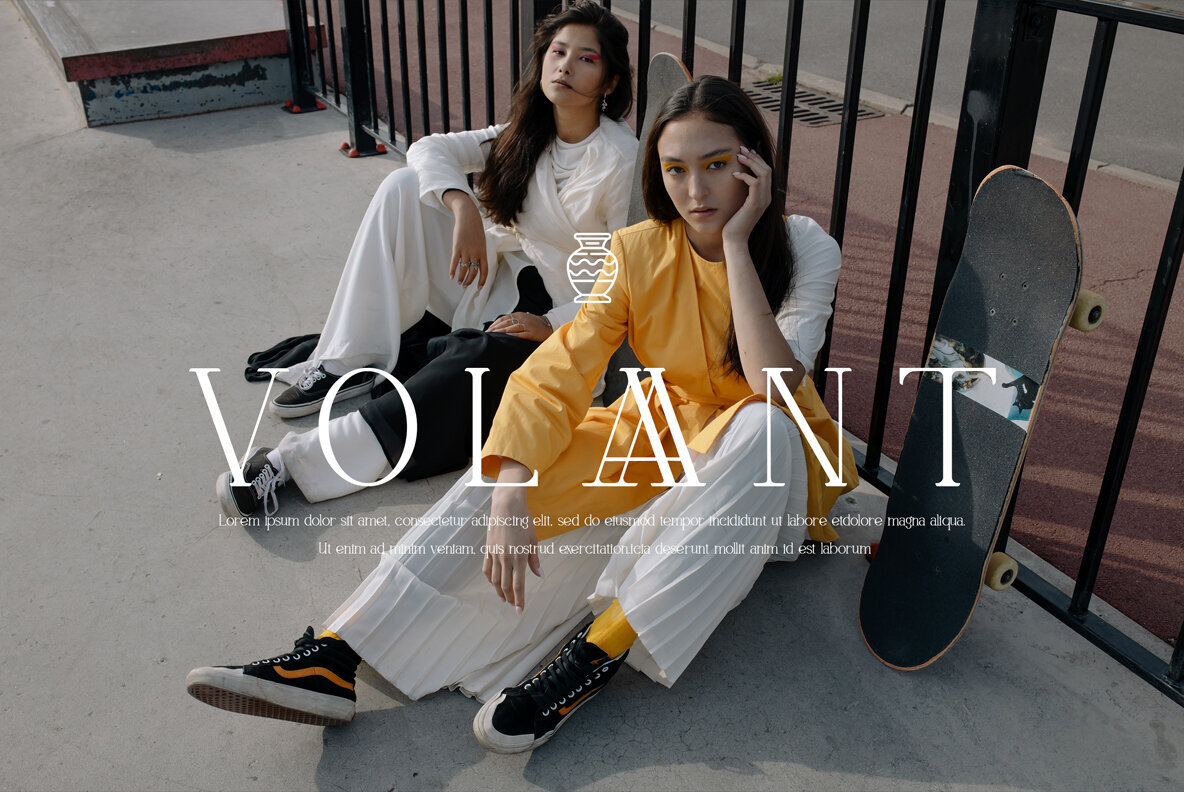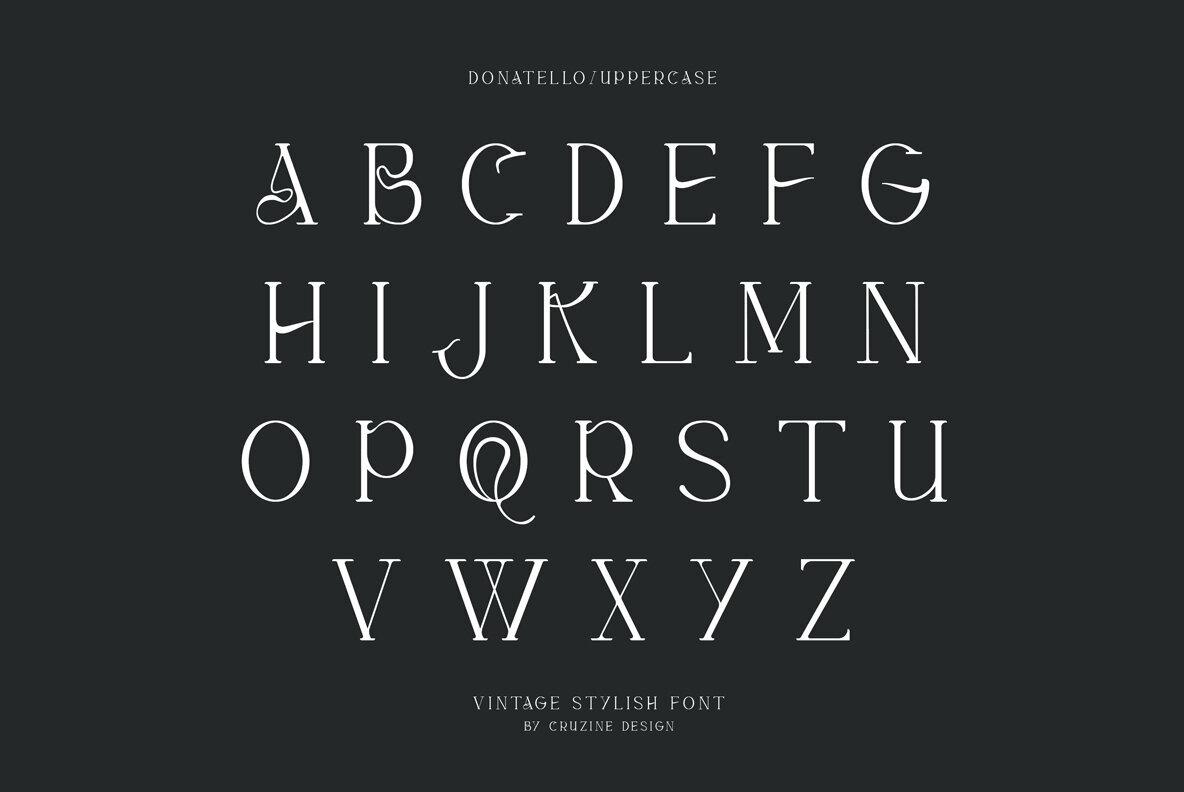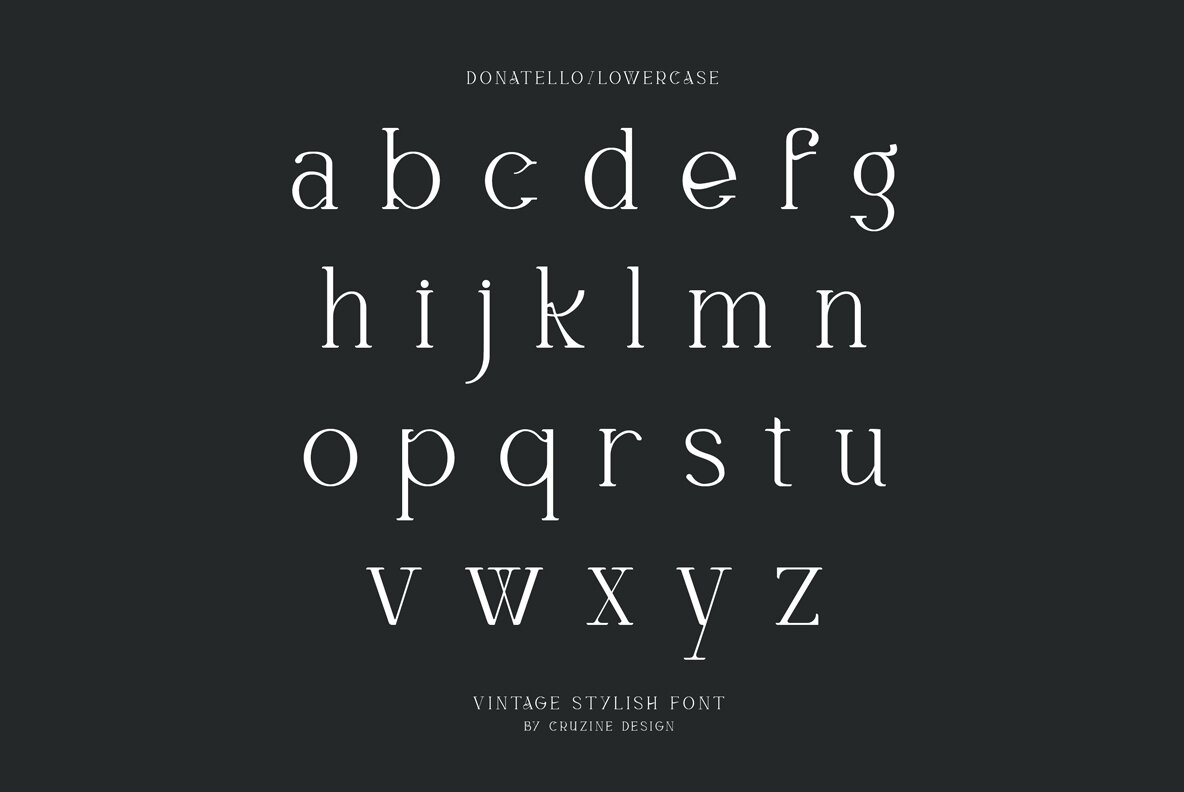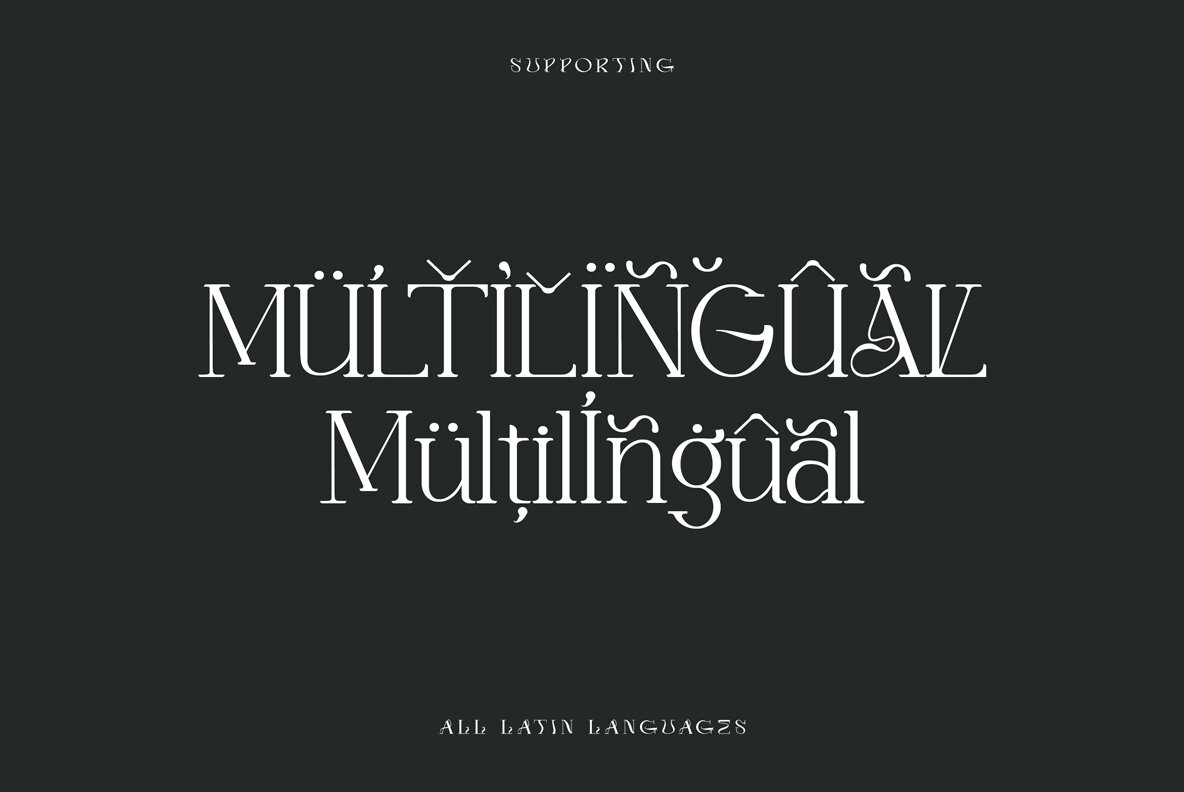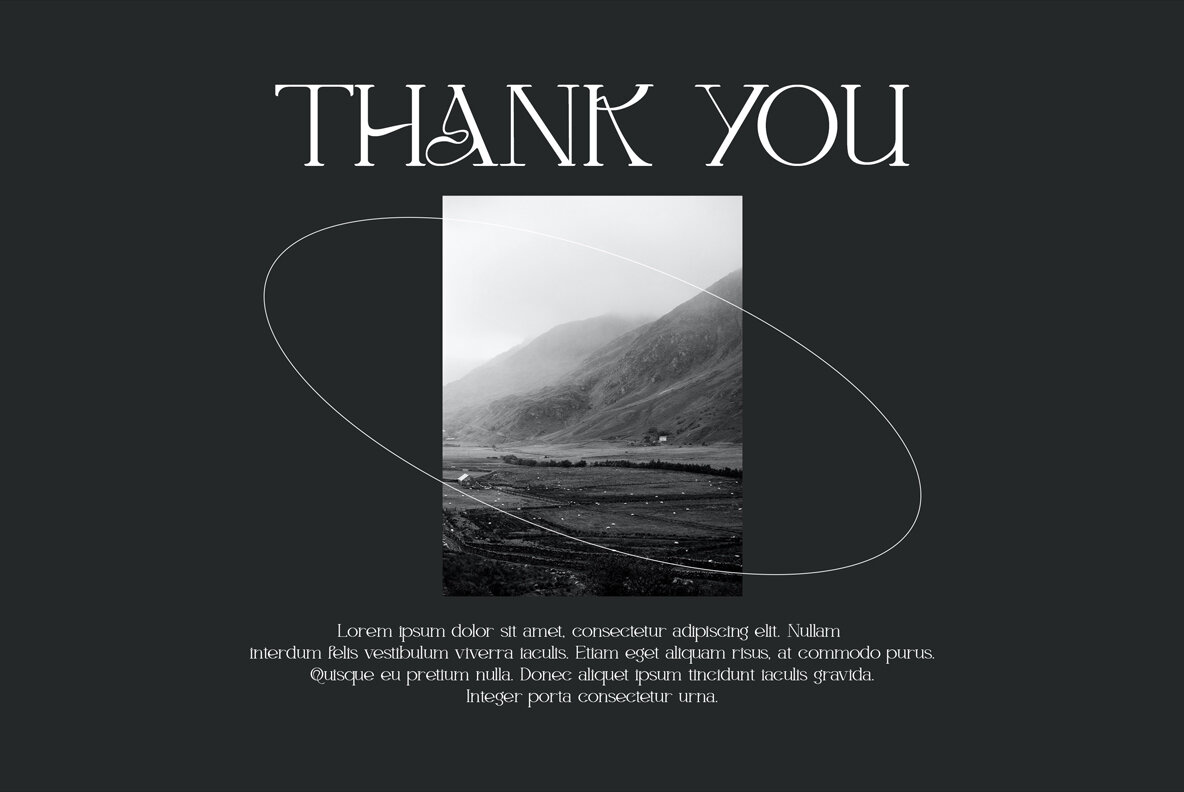
Donatello Modern Serif: Elegant Typeface for Contemporary Branding
Donatello Modern Serif by Peter Olexa offers a perfect blend of trendy and elegant style, making it an ideal choice for sophisticated branding projects. This serif font delivers a classic yet modern appeal that enhances any project it's applied to.
• Multilingual Support – Accommodates a wide range of languages.
• Ligatures – Includes stylish ligatures for a refined look.
• Ideal for Branding – Perfectly suited for modern branding ventures.